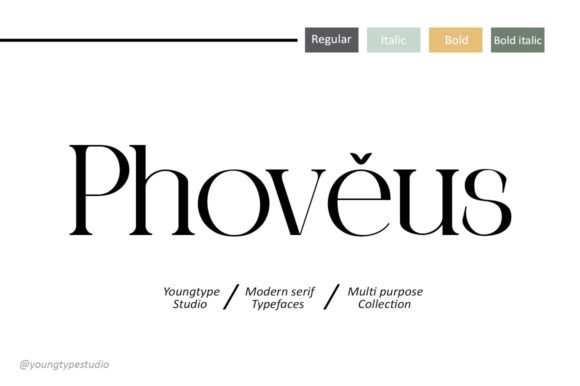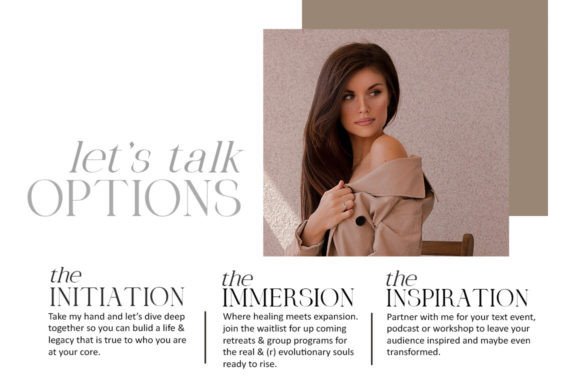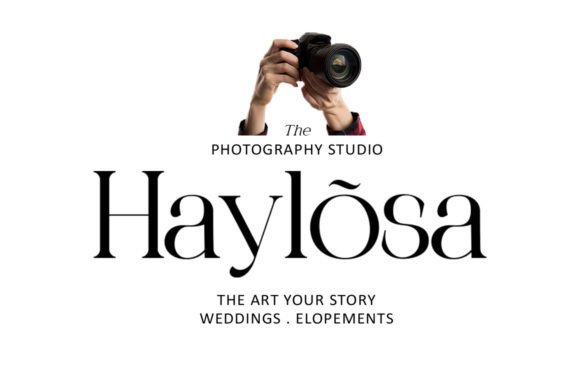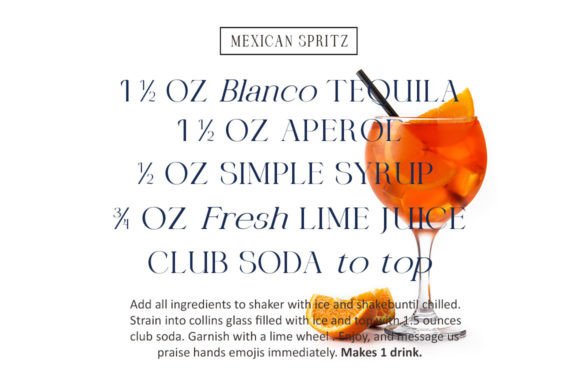
Phoveus Font: Modern Serif for Elegant Branding & Logo Design
About the Phoveus Font
Let us introduce you to Phoveus Font, where timeless design meets modern craftsmanship. Phoveus is a modern serif font, a powerful professional resource that can add a magical and exquisite look to any design! You can use it for almost anything like blog headers, posters, wedding elements, t-shirts, clothing, book covers, business cards, greeting cards, branding, invitations, quotes, and so on.
Phoveus excels in display applications such as headlines, posters, and branding elements where its strong, modern serif design makes a statement. It’s equally effective for short text blocks on packaging or invitations. However, its high contrast and relatively large x-height make it less suitable for extended body text or UI elements requiring high legibility.
Its personality is confident and sophisticated, lending itself to projects requiring a sense of authority and quality. Brands in luxury goods, high-end fashion, or professional services would find it particularly fitting.
Consider pairing Phoveus with a clean sans-serif like Lato for a balanced contrast, or a playful script font like Great Vibes for a touch of informality in specific applications, depending on the desired effect. A geometric sans-serif would also complement its modern feel.